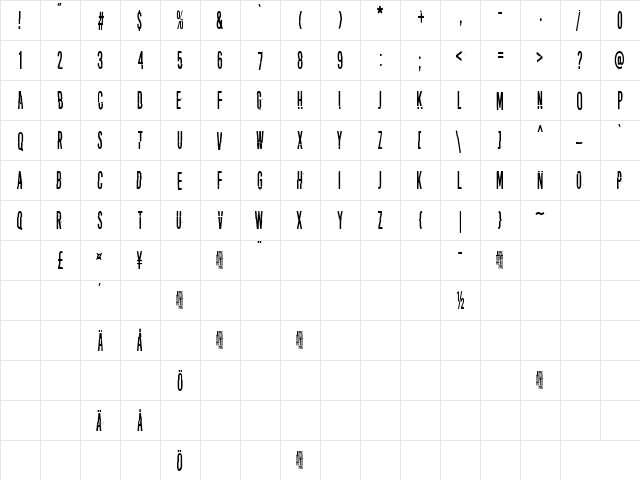
Puolelta toiselle Regular
Design Context for Puolelta toiselle Typeface
Puolelta toiselle takes a measured approach to typography — its balanced proportions and neutral character make it a reliable workhorse for both digital and print work.